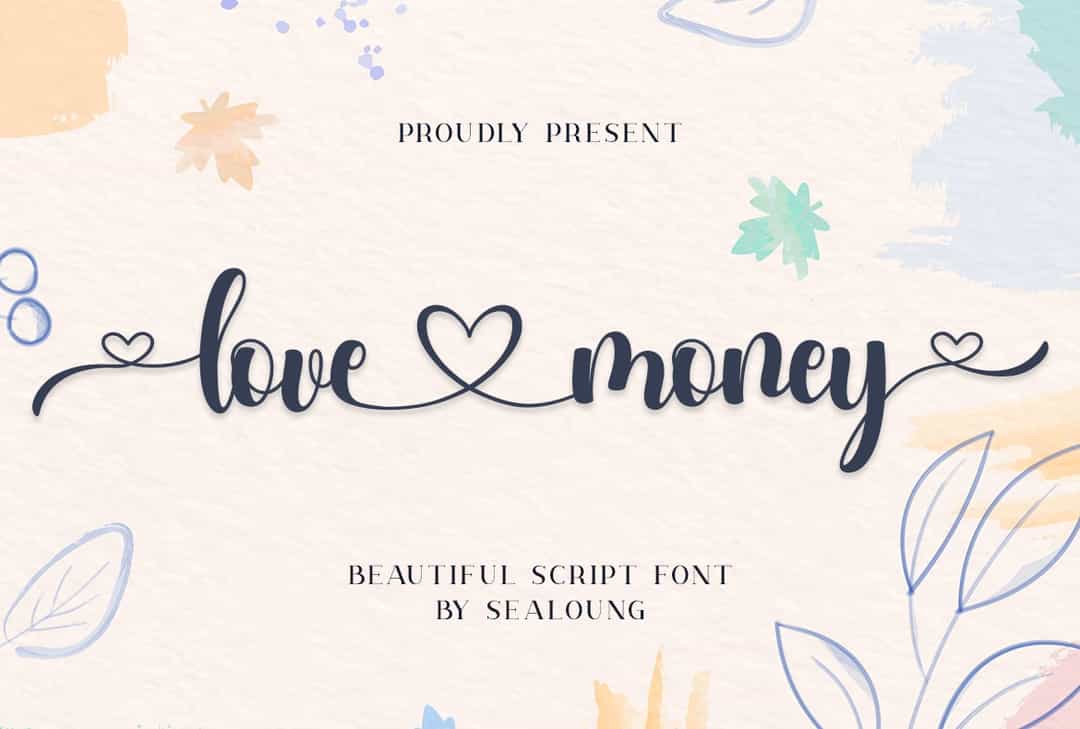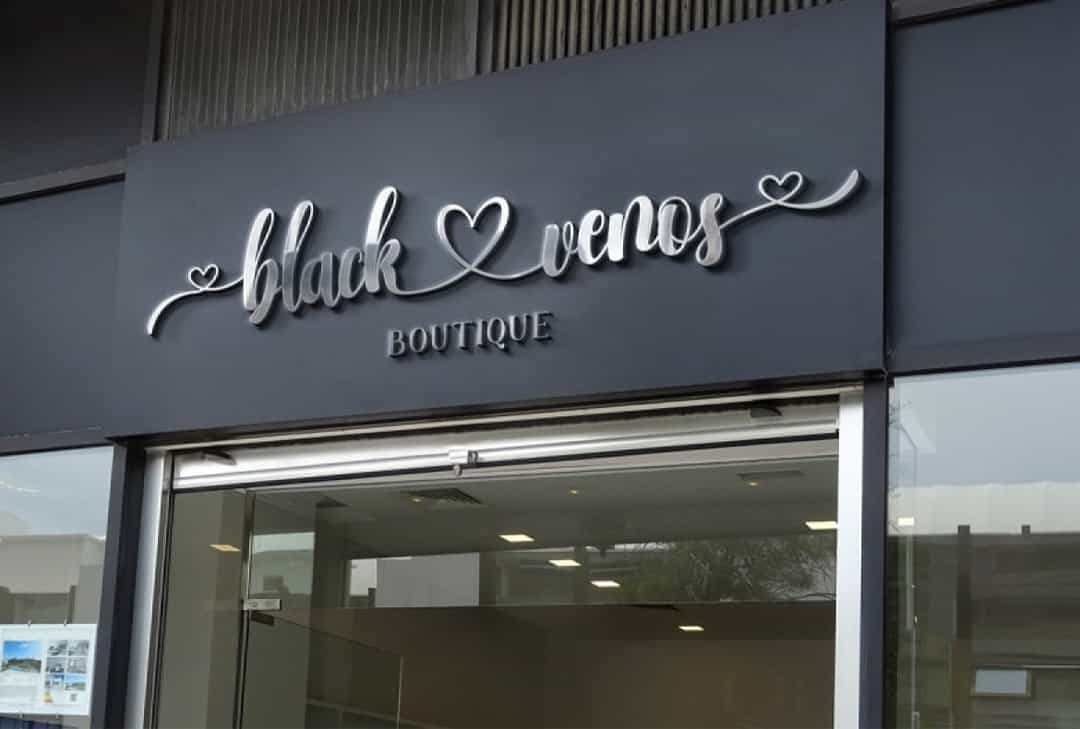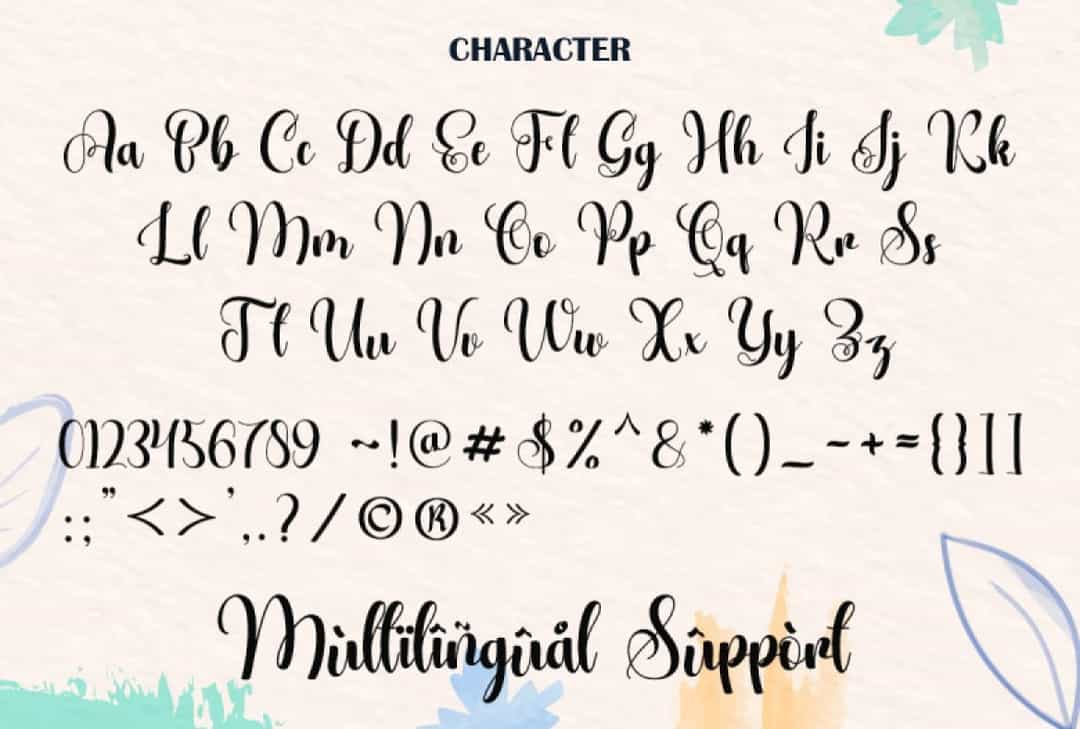
Love Money is a script font with elegant and romantic design and has heart symbols for that add a special touch. Ideal for use in wedding invitations, valentine’s day cards, greeting cards, quotes logos business cards or any project that requires a handwritten feel, this beautiful font comes with clean lines, beautiful illustrations, and several options that will give a realistic look of the handwritten text.